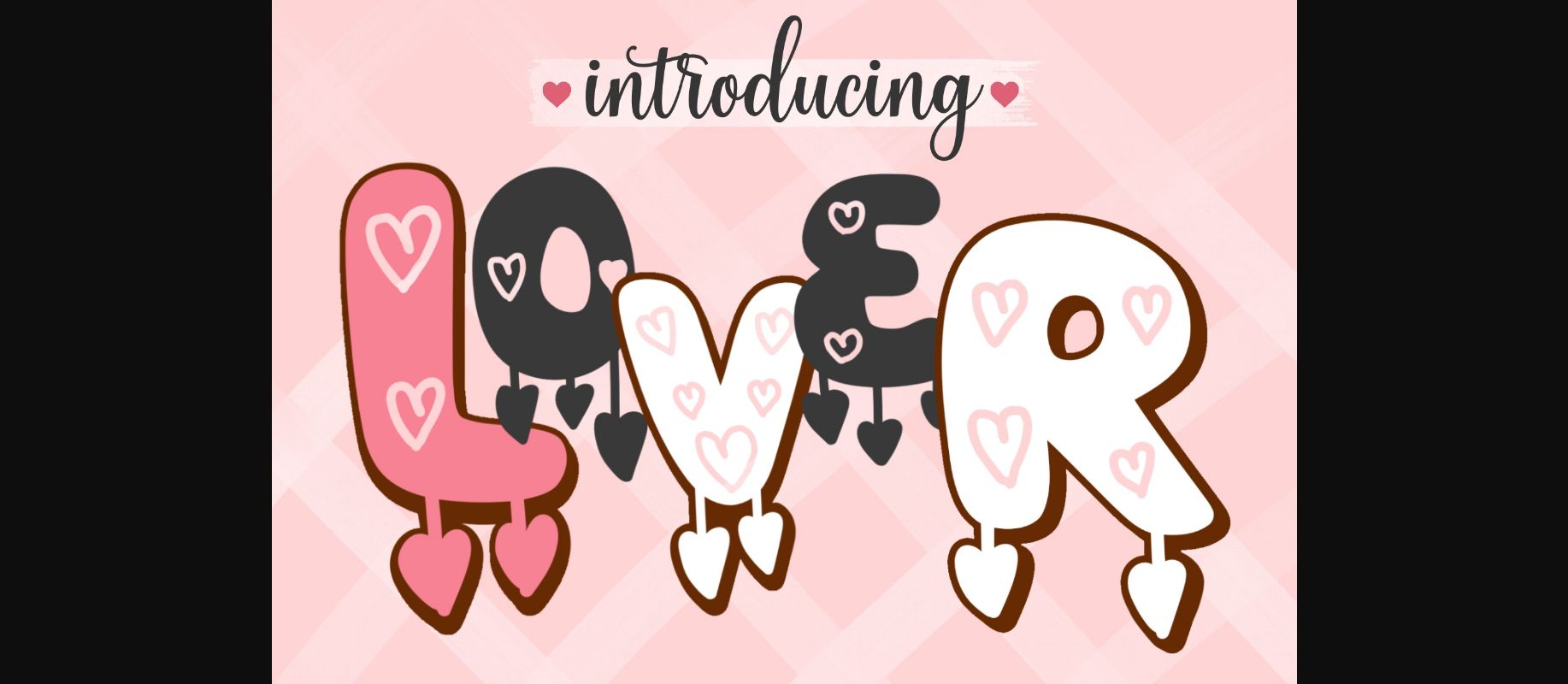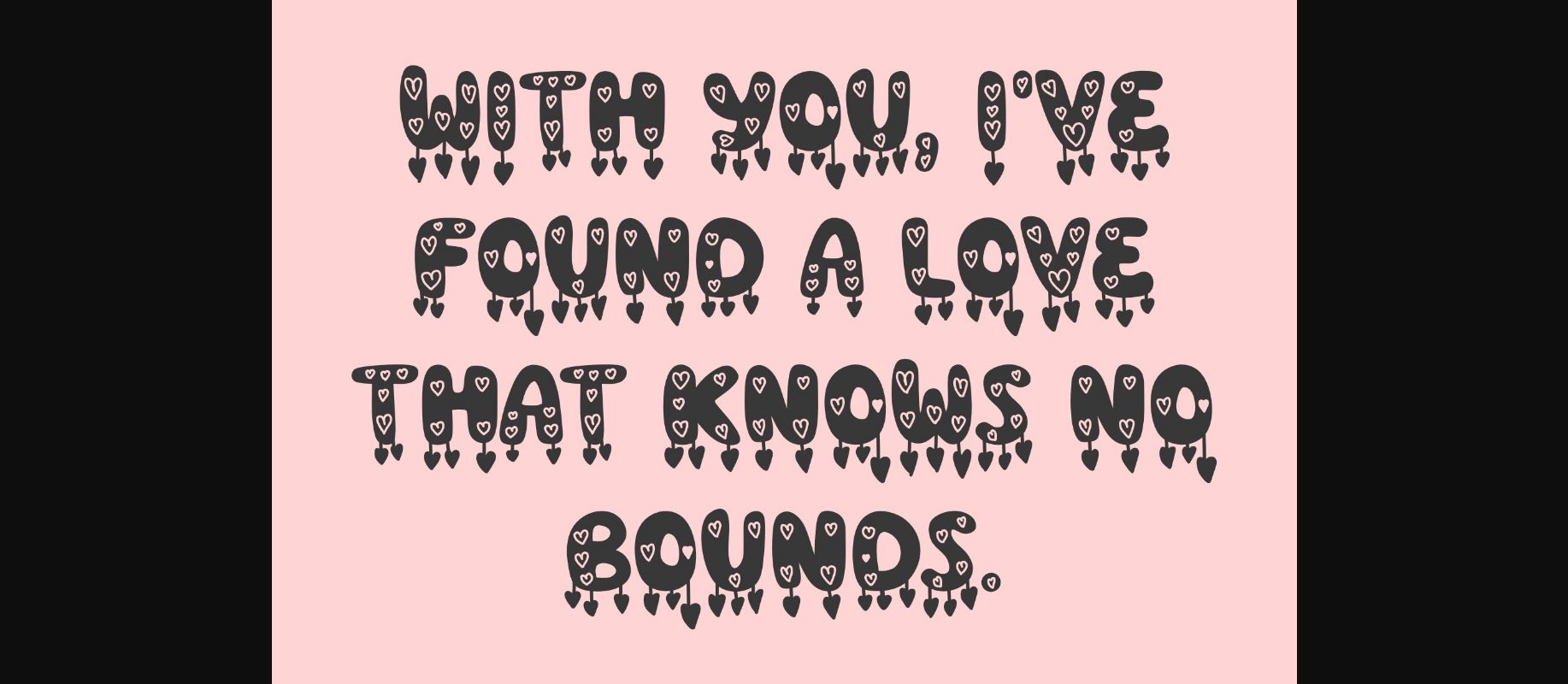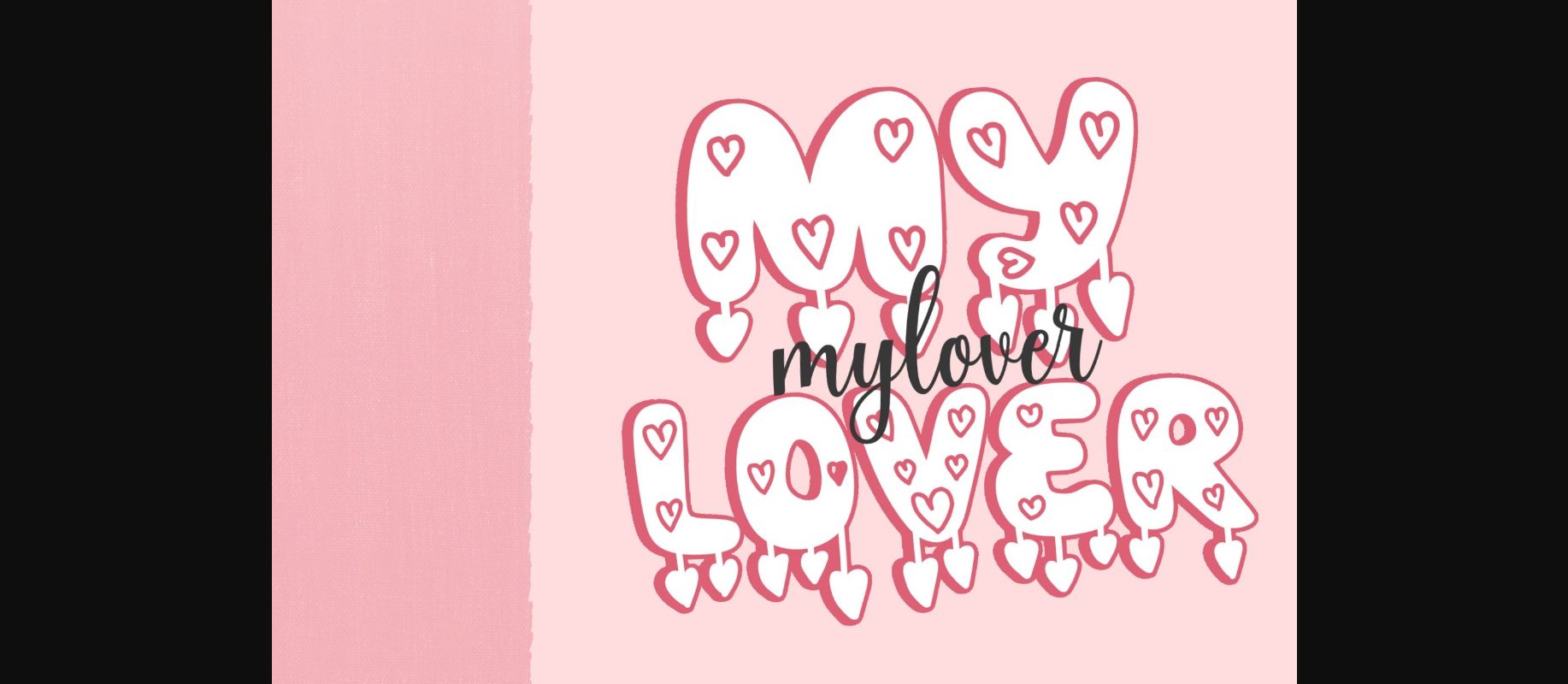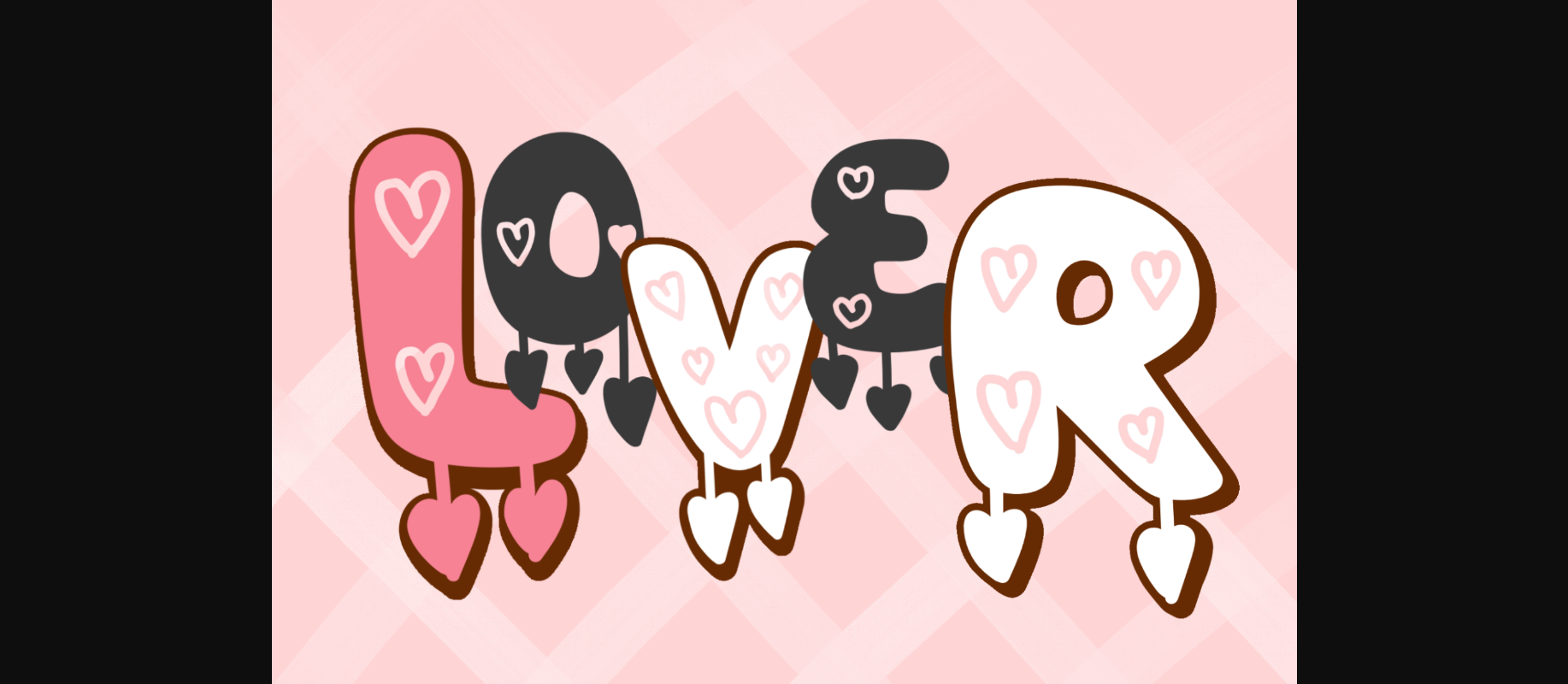
Lover Font
About Lover Font
Embrace the power of love with the Lover font, designed to add a touch of romance to your projects. Whether you’re designing wedding invitations, crafting love letters, or creating heartfelt greeting cards, this font will help you convey your feelings with style and grace.